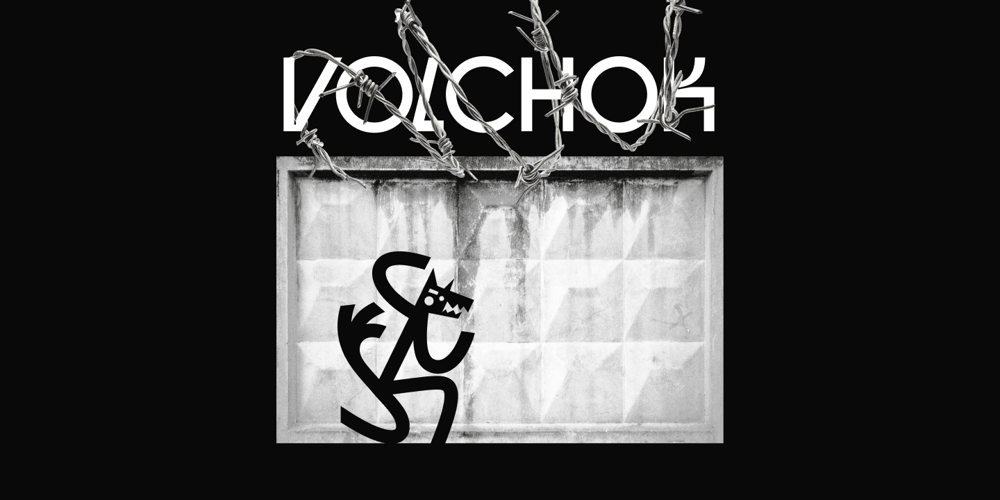
SK Volchok
SK Volchok font
SK Volchok Font Family was designed by Tikhon Reztcov and published by Shriftovik. SK Volchok contains 1 styles and family package options. SK Volchok is an experimental grotesque inspired by aesthetics of Soviet constructivist and modernist architecture, and Soviet culture in general. When creating it, we ignored all possible rules of typography in order to get a unique typeface that is not afraid to attract attention. It has plastic and dynamic properties, while looking monolithic, referring to the visuals of constructivism and modernism. It has inclusions, multilingualism, an extensive symbol set, uppercase and lowercase glyphs, and most importantly – a rebellious spirit and ambitious style, which makes it a universal solution for accidental typefaces for your projects!